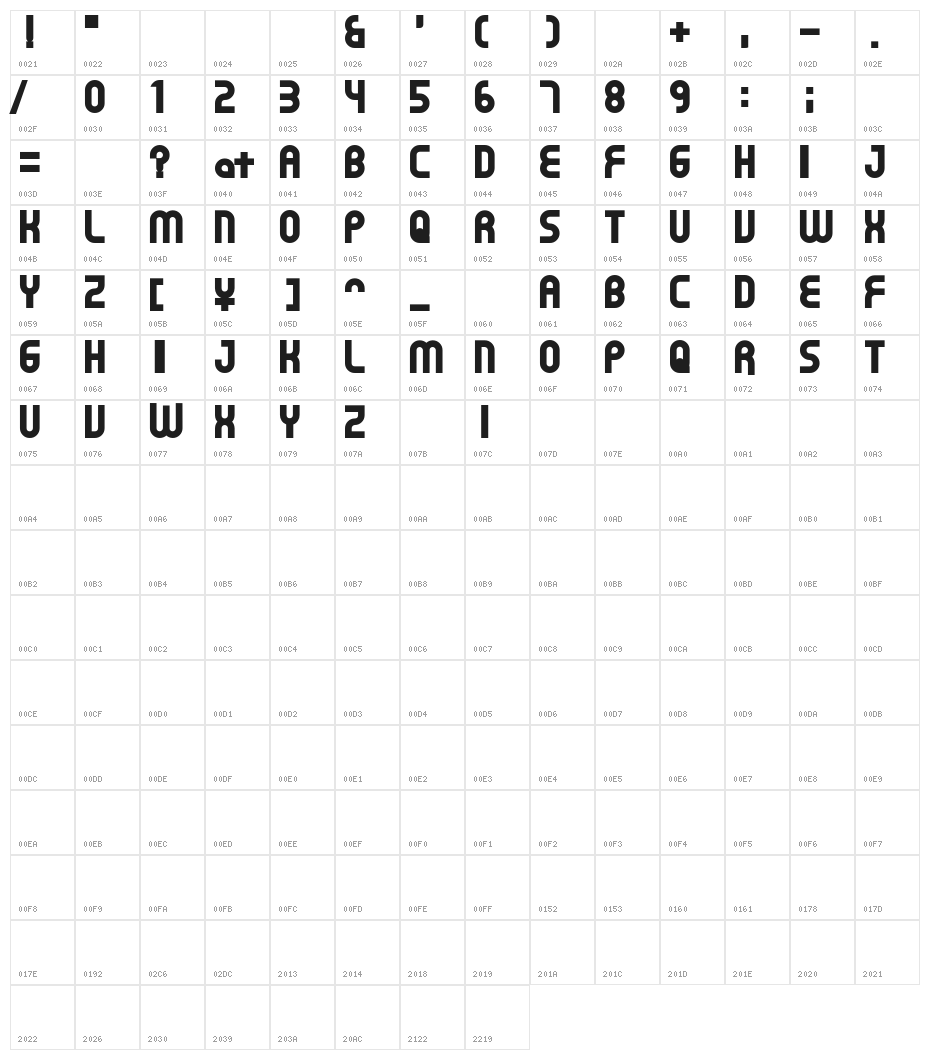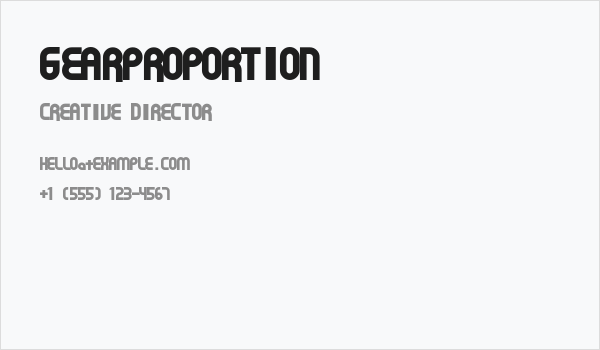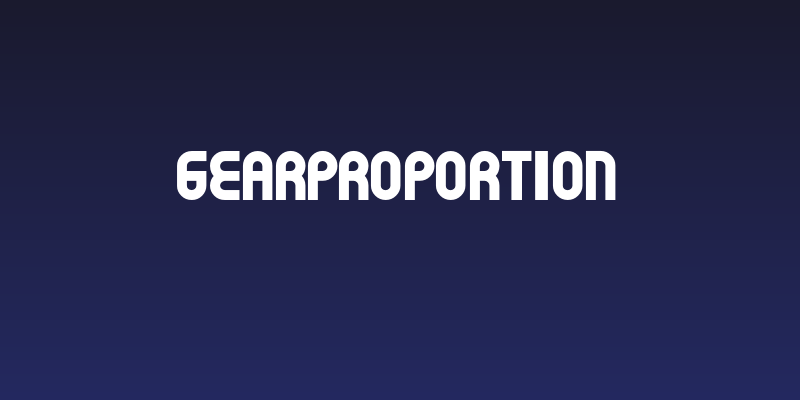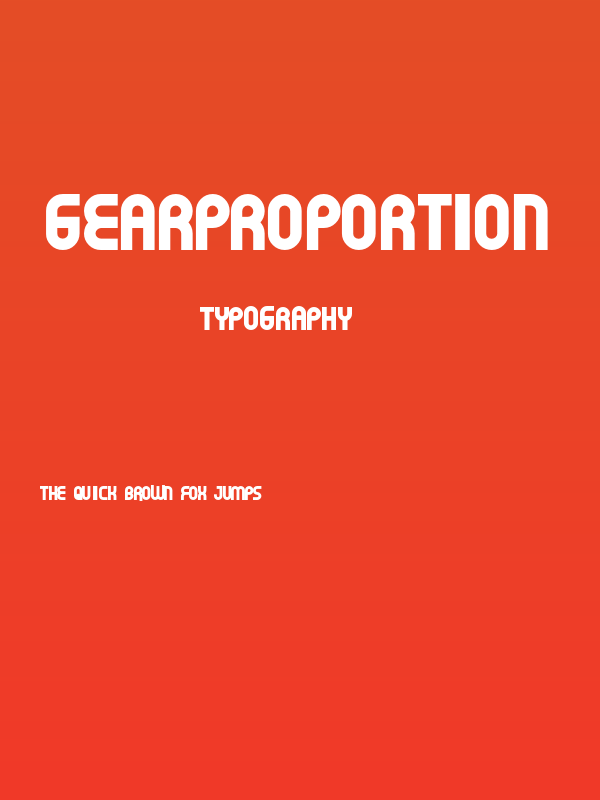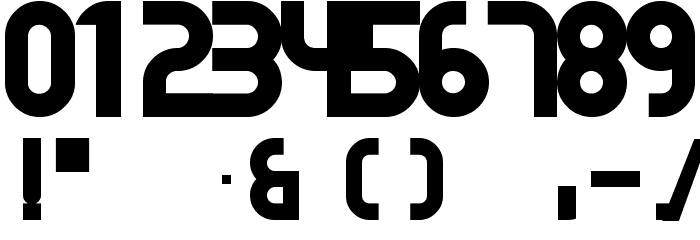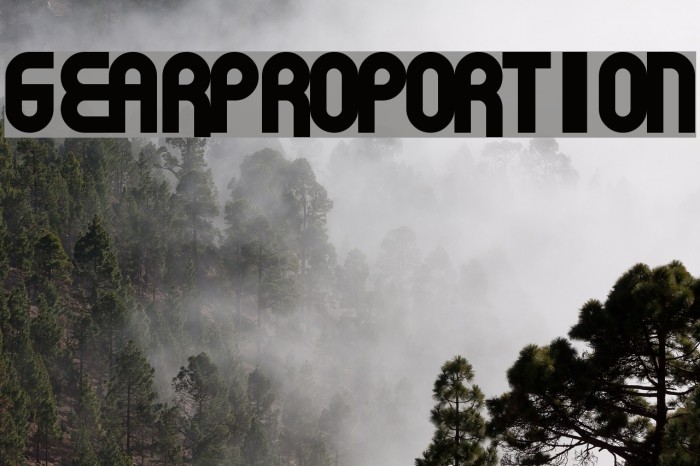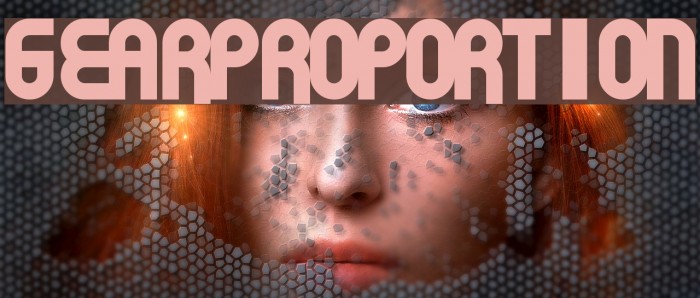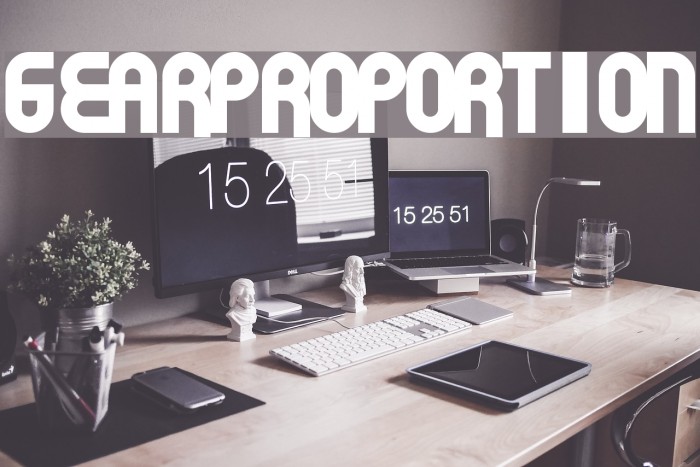
GearProportion Font
GearProportion Description
This font features a bold and geometric design with a modern aesthetic. The characters are constructed with thick, uniform strokes that create a strong visual impact. The rounded edges and consistent line weight contribute to a cohesive and contemporary look. The font's structure is highly legible, making it suitable for various display purposes. Its unique style is characterized by a blend of straight lines and curves, giving it a futuristic and industrial feel. The spacing between characters is tight, enhancing its compact appearance.
| Proposed Projects | Ideal for branding, posters, headlines, and any project requiring a strong, modern typeface. |